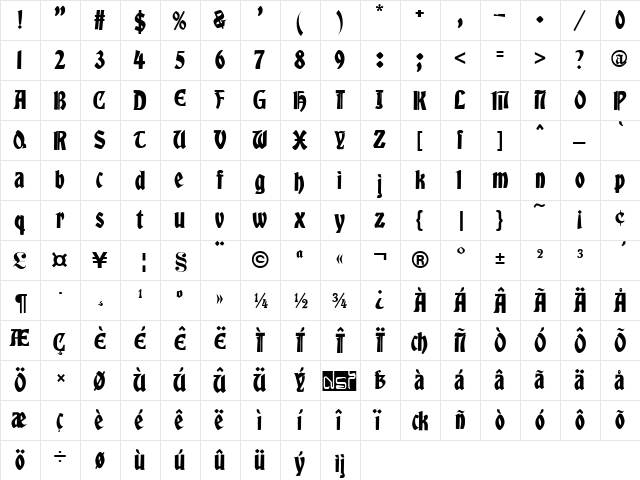
Albert Text Regular
Design Context for Albert Text Typeface
Albert Text is a composed and adaptable typeface that performs quietly and consistently across a wide range of design contexts.